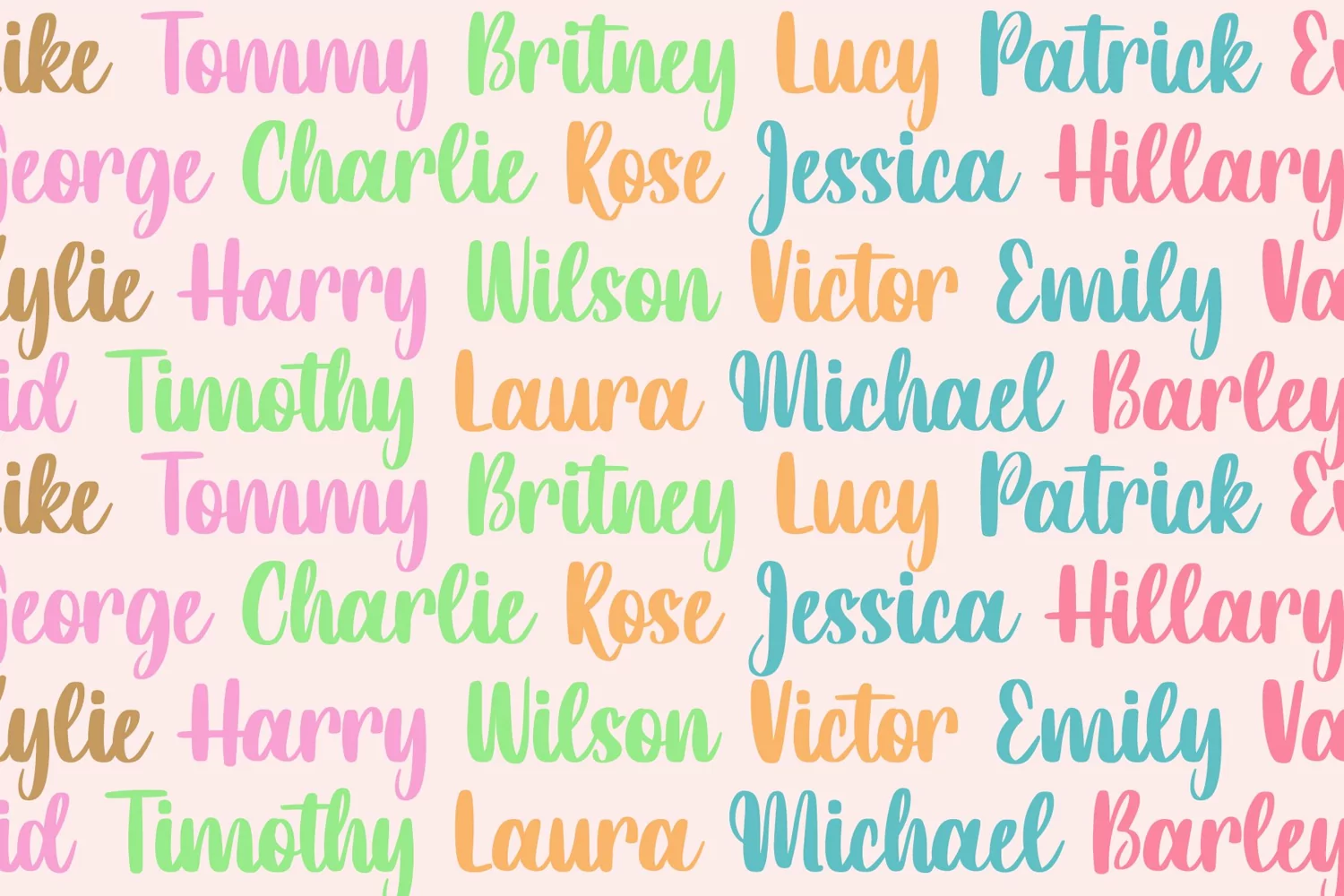
Goldish is cute and fun script font. It is so perfect for design that needs handwritten touch, such as wedding design, invitation, birthday, t-shirt design, crafting, sticker, sublimation, and many more.
+Uppercase & Lowercase
+Numeral and Punctuation
+Most Multilingual Accent